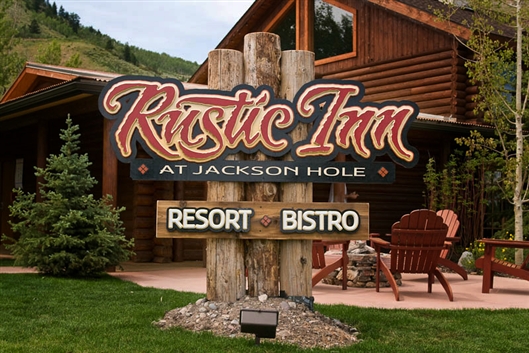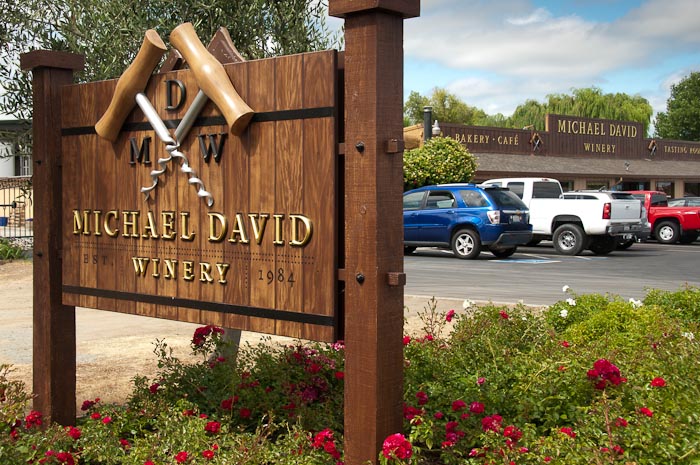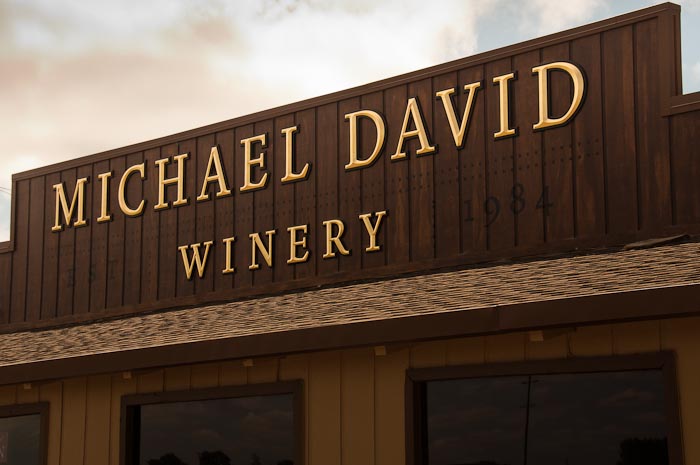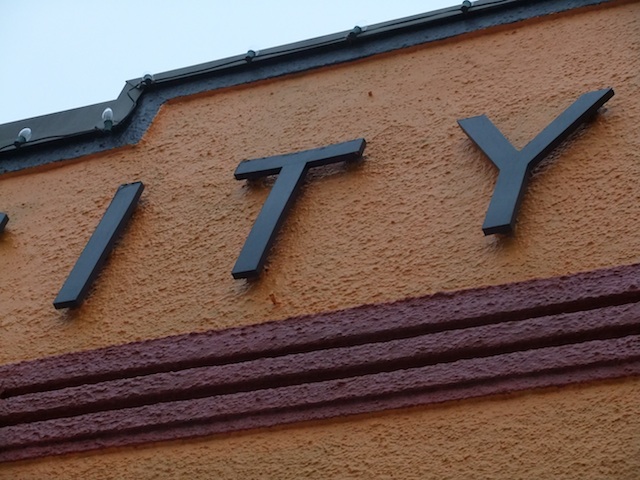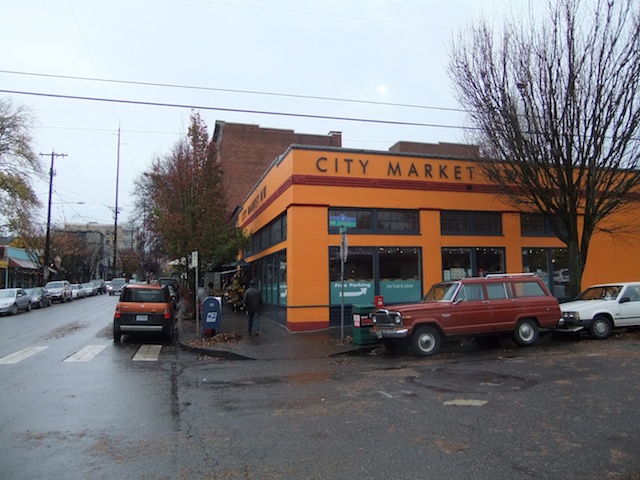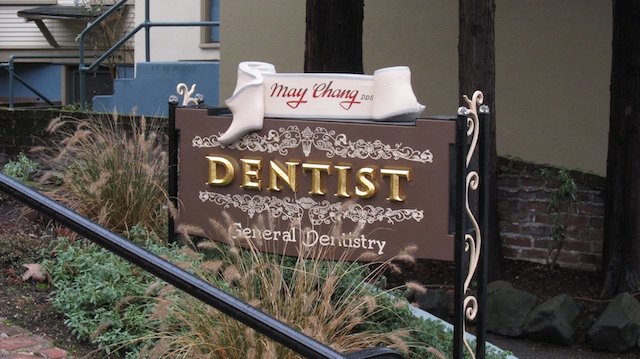
cut out dimensional lettering.
Just like to know what everyone else out there uses to make cut out dimensional lettering. Like 1" , 1 1/2" and 2". Also how are you painting it.
Re: cut out dimensional lettering.
Depends on thickness, but letters that size: acrylic, pvc, hdu, wood in that order best to least.
Carefully.
Re: cut out dimensional lettering.
Geez I hope those are the thickness... In the past I've used foam to aluminum to cut letters out of. As far as paint depends on the material used. Nowadays's I'd make a DFX of whatever needed and send over to my Bud with the water jet and pick up the next day. So unless you know someone with a water jet cutter... I'd look at Gemini for them. They have many in stock colors and styles.
Re: cut out dimensional lettering.
Sorry I should have been more specific. These letters would be from 1" to 2" thick and could be any shape and size within a 4' x 8'. For years I was using Gator Board with great success but on the last project the face on the front is delaminating after about a year outside.
I thought about HDU but the cost was to high.Now that I have to redo it the cost doesn't seem to bad.
Re: cut out dimensional lettering.
First, I determine where the letters are going to be used.. interior or exterior, 10' and above or below 10',
and what surface will they be adhered to.
Are you creating the letters from your design, hand lettering style, or are you using a standard font available.
HDU is my favorite, depending on the application. I've also used PVC and acrylic.
I prime raw HDU with Benjamin Moore Fresh Start water base primer, 3 coats, then finish with 2 coats Benjamin Moore Exterior Latex,
or Interior, depending on the application. You can use this same process for PVC, without the primer or one coat of primer.
I use to hand cut my HDU letters, now I use a fella near me who is an experienced manufacturer, using a computer router.
He can cut fine prismatic letters, with an outline back panel if needed. His business happens to have the same initials as my favorite primer and paint application, BM.
Re: cut out dimensional lettering.
I don't believe I would use Gator Foam outdoors.
I would not hesitate to use HDU, cost is absorbed by the client. Knowing the product will hold up for years is the first step to a good nights sleep.
You can use PVC with the same peace of mine.
Re: cut out dimensional lettering.
I'm surprised the gator board didn't deteriorate sooner. I know they make a product with pvc faces, but didn't think the core would last that long.
As for paint, I've seen jobs Tony's done over the years, and the paint has proven to be a very good product.
Top Photo, the letters are 1 1/4" HDU, 14" tall, primed, gilded and mounted to 1/4" pvc, painted black w/ BM paint, by Tony.
Second photo, the letters are 3/4" HDU, 1/4" pvc backers painted black, and mounted to 3/4" HDU with a dibond backer.
Rustic Inn letters are 1" thick HDU, I think Mike primes with Chromatic and finishes w/ 1 shot, but need to double check. Letters are 12-14" tall, by Mike Jackson
These signs could conceivably outlast the business they're made for.
HDU's too expensive? Not anymore is it?! Welcome to the club.
Good looking sign for your wall.
Re: cut out dimensional lettering.
It was/is a dark blue, probably an acrylic. It matched the trim color of the original wall, before they repainted with the burnt orange. Maybe they repainted my letters while they were there, but I don't think so.